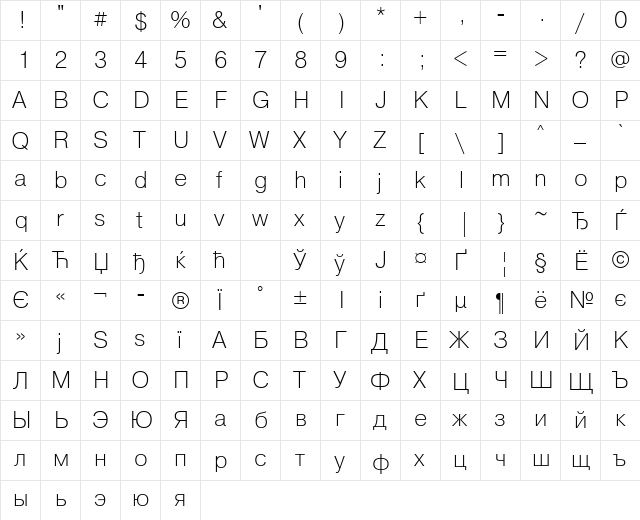
PragmaticaLightCTT Regular
Design Context for PragmaticaLightCTT Typeface
PragmaticaLightCTT is a composed and adaptable typeface that performs quietly and consistently across a wide range of design contexts. Its slender proportions lend an understated elegance to any composition.